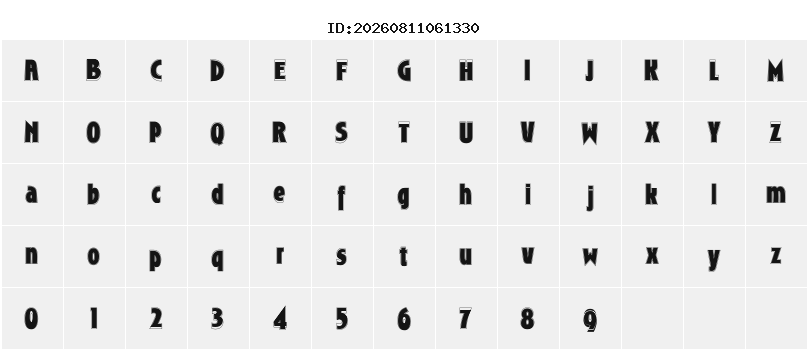
Roslyn Contour Preview
• Font Name: Roslyn Contour
• Full Font Name: Roslyn Contour
About Roslyn Contour.ttf
Roslyn Contour.ttf is a modern, elegant sans-serif font designed for ultimate readability and visual harmony. Perfect for branding, headlines, web design, and print materials.